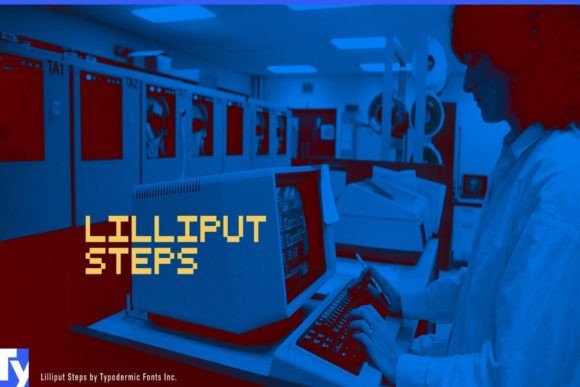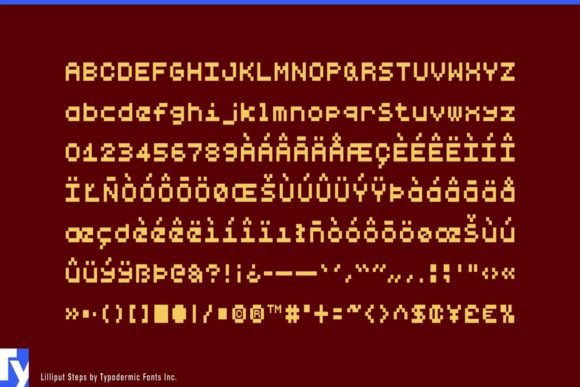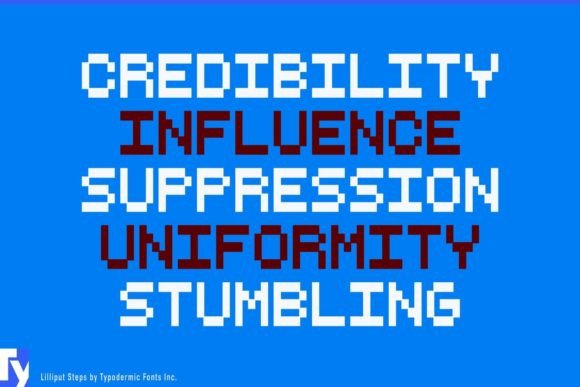
Lilliput Steps Font: Retro Pixel Font for Playful DIY & Cricut Crafts
About the Lilliput Steps Font
Get ready to be inspired by Lilliput Steps Font, a fresh and dynamic typeface for modern creators. Lilliput Steps is a pixeled display font inspired by the prototypical Earthbound video game. Playful, quirky, and with a modern appearance, it is ideal for any craft or product you wish to create!
Lilliput Steps excels in headline use, short bursts of text within logos, and packaging design where its playful energy can shine. It’s also well-suited for posters and social media graphics requiring a retro-modern aesthetic. However, its pixelated nature makes it unsuitable for body copy or longform text; readability suffers at smaller sizes. Avoid using it in UI contexts requiring high legibility.
The font’s core personality is playful and quirky, yet undeniably modern. It projects a sense of fun and approachability, making it ideal for brands targeting a younger demographic or those with a lighthearted approach.
For effective pairings, consider pairing Lilliput Steps with a clean sans-serif like Open Sans for body text, or a geometric sans-serif like Montserrat for a more modern feel. A classic serif like Garamond could offer a sophisticated counterpoint if a more formal yet playful balance is desired.
Lilliput Steps Font Usage Examples
Lilliput Steps Font Example